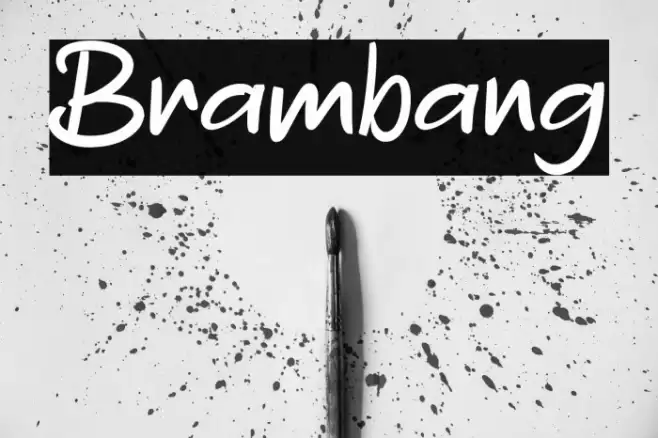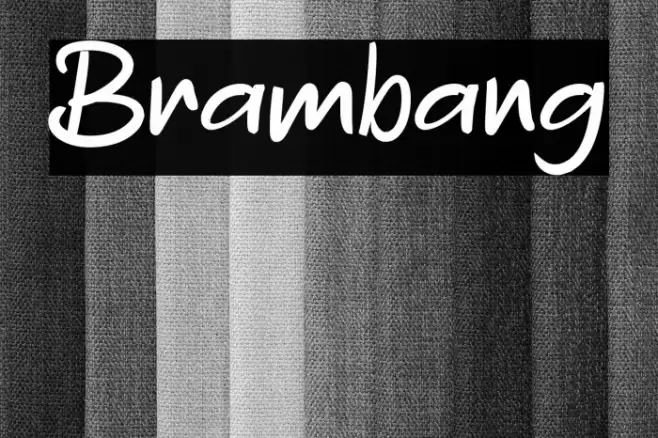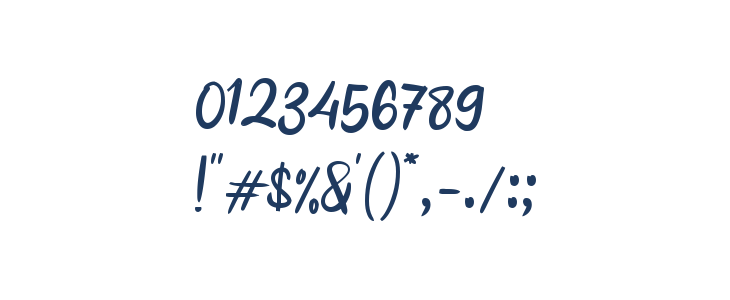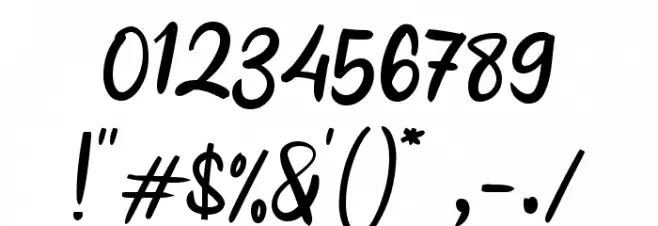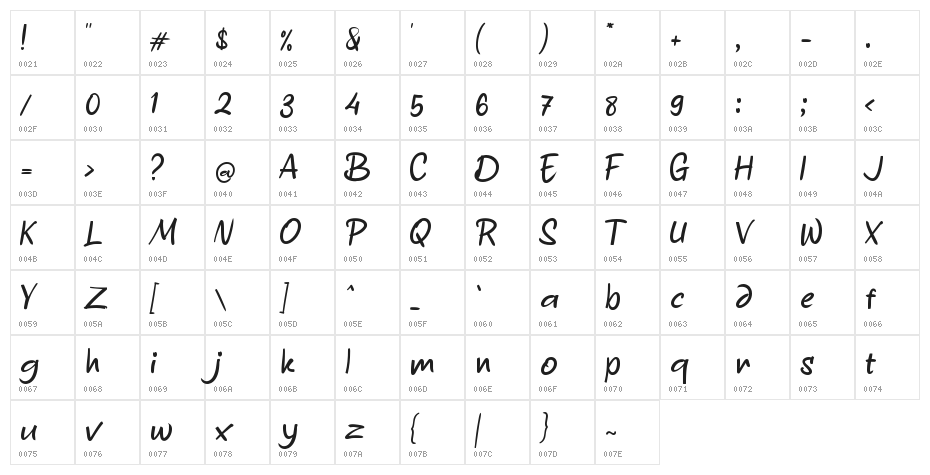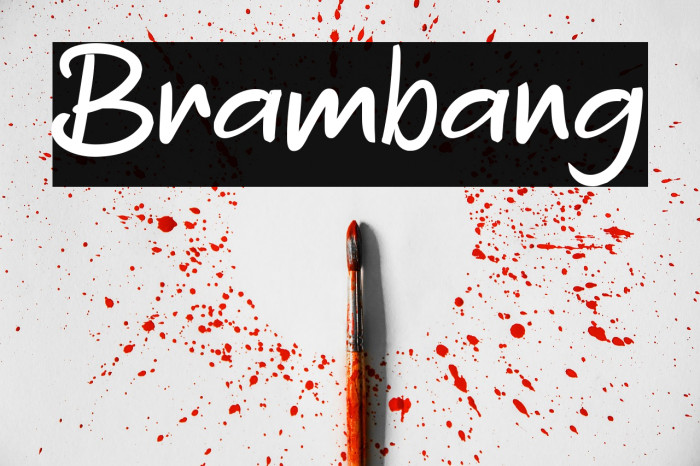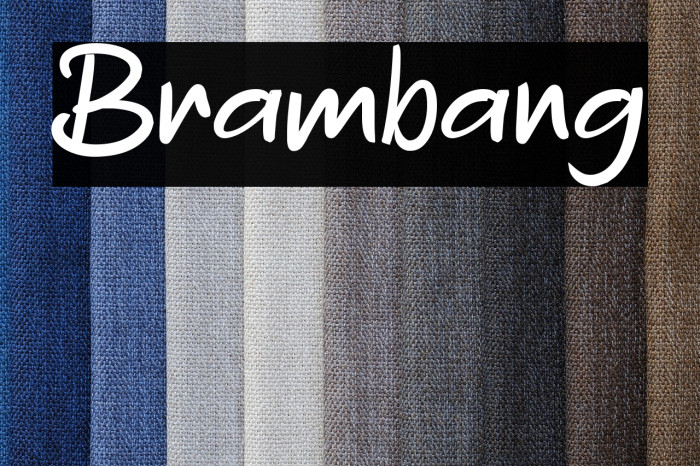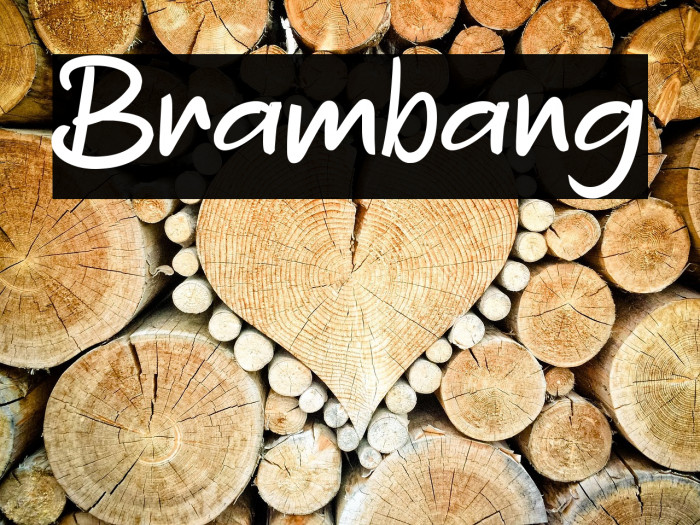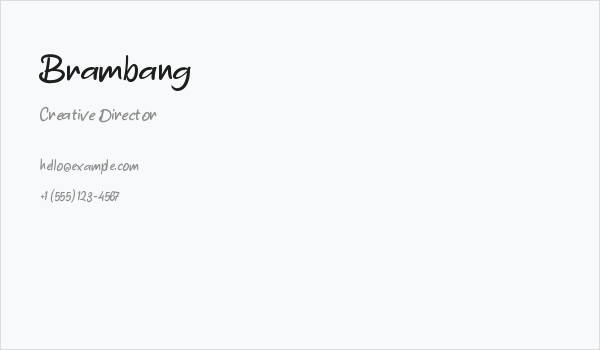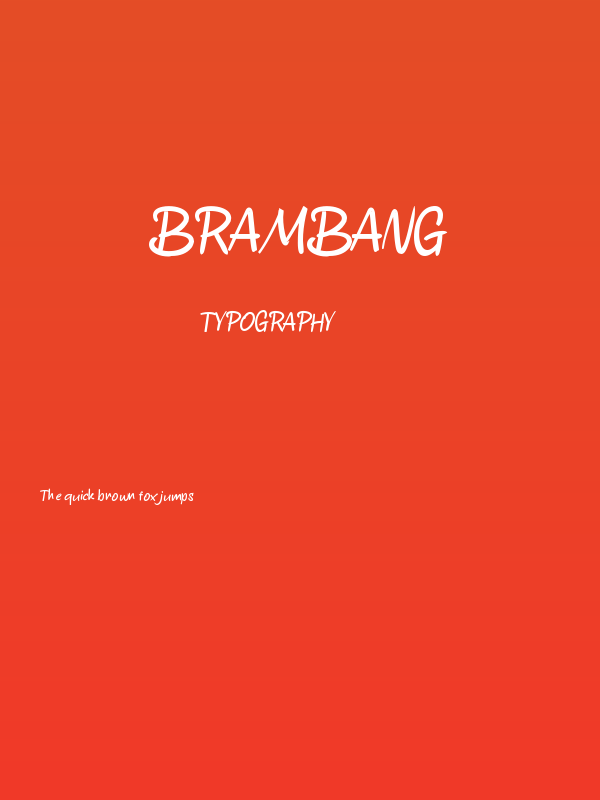
Brambang Font
Brambang Description
This font exudes a lively and dynamic energy with its handwritten style, featuring smooth, flowing curves and a slightly slanted orientation. The uppercase letters are bold and confident, while the lowercase letters maintain a playful and approachable feel. The numbers are consistent with the overall style, ensuring readability and cohesion. Special characters are thoughtfully designed, complementing the font's aesthetic. The strokes vary in thickness, adding a natural and organic touch, which enhances its handwritten appeal. This font is perfect for projects that require a personal, informal touch, such as invitations, greeting cards, or branding for creative businesses.
A lively, handwritten font with smooth curves and a playful style from Uncategorized fonts.
- Proposed Projects: Ideal for invitations, greeting cards, creative branding, and personal projects.
- Use Case: Logos, Headlines, Informal Text